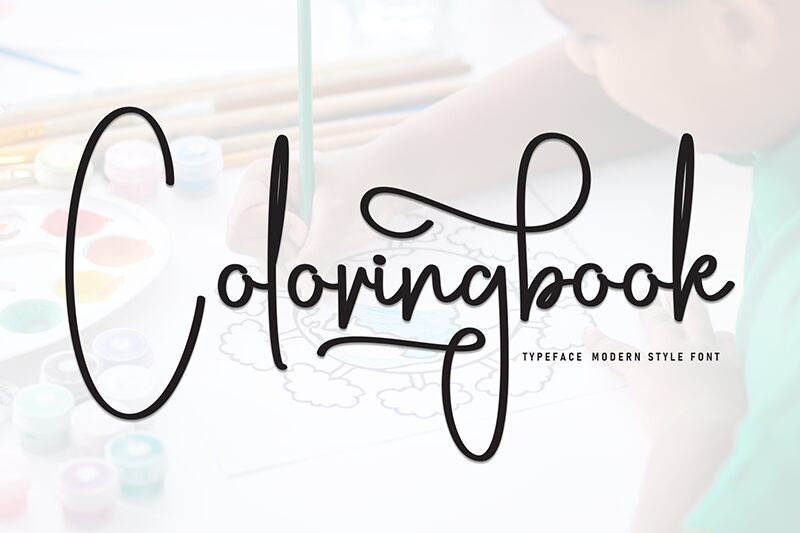
Coloringbook
Coloringbook font by Scratchones is a free handwritten font that exudes casual elegance. Its light weight and flowing movement mimic the relaxing nature of modern calligraphy, but its general lines tend more towards traditional characters descriptions. With such warm and inviting nature, the coloringbook is definitely one that you aptly finish your projects with.
And these projects are limitless! Prepare eye-catching titles for books and magazines, create original artwork with personalized characters, or use them for branding designs. The font can almost be described as therapeutic which makes it perfect for activities related to health and well-being including labels and packaging designs.